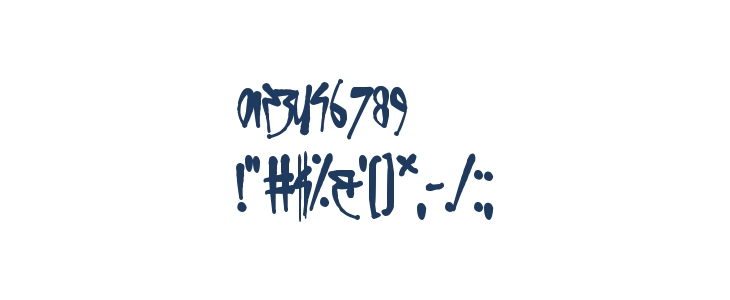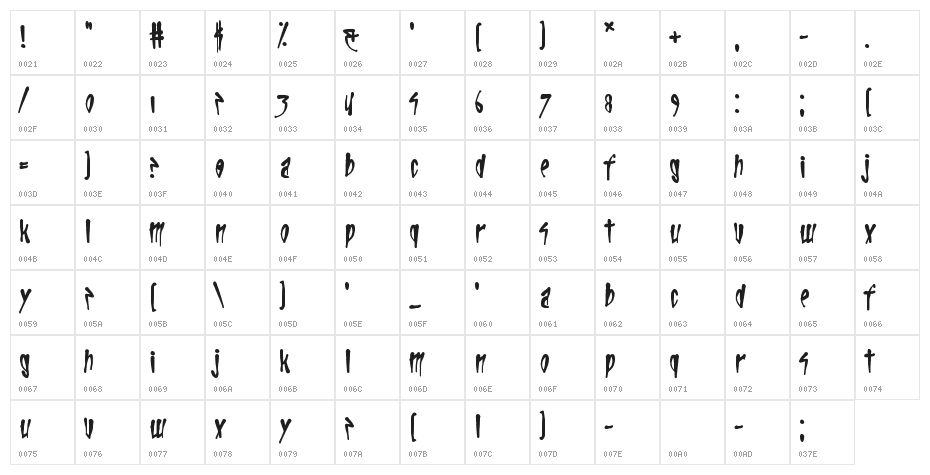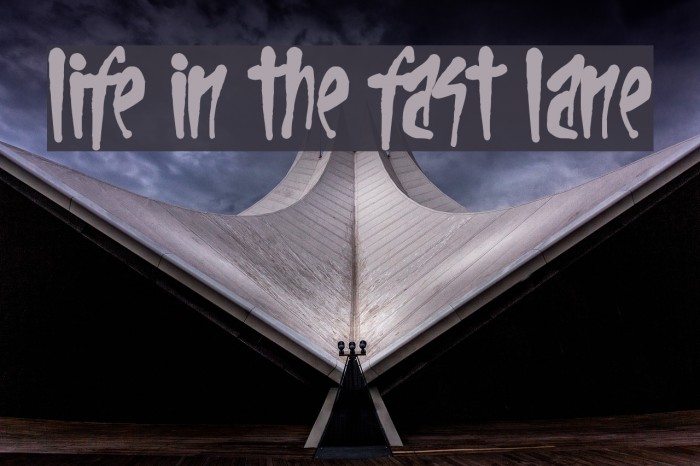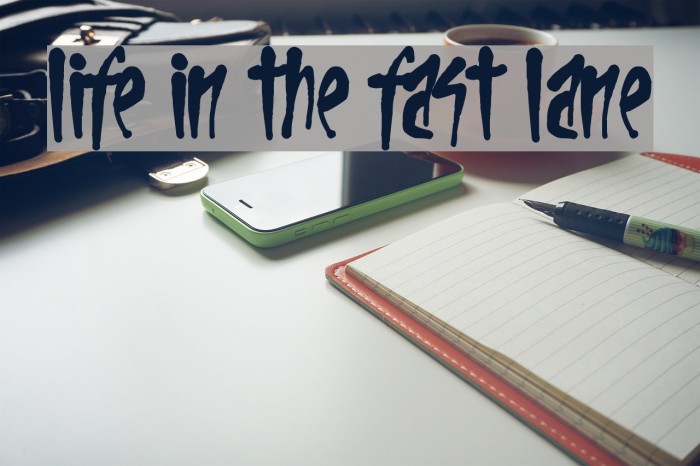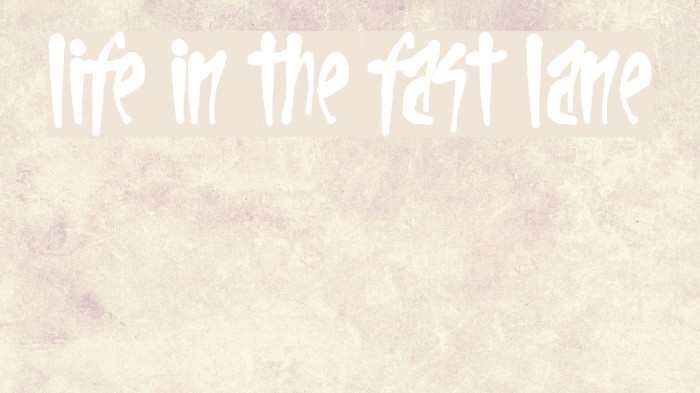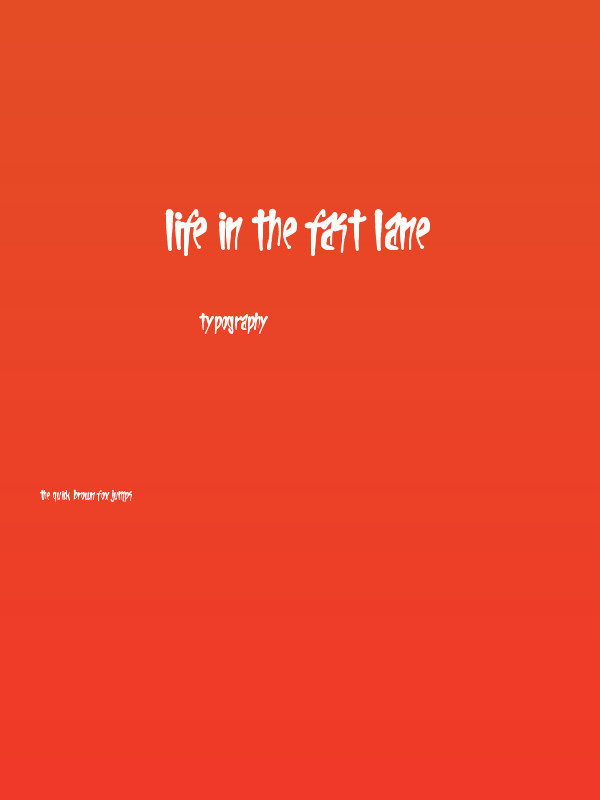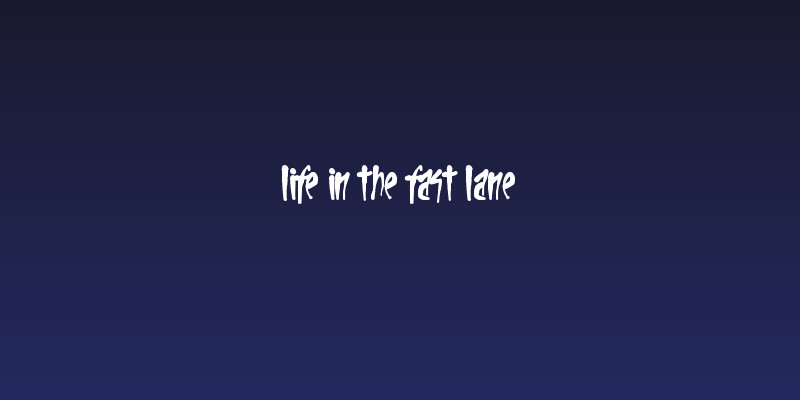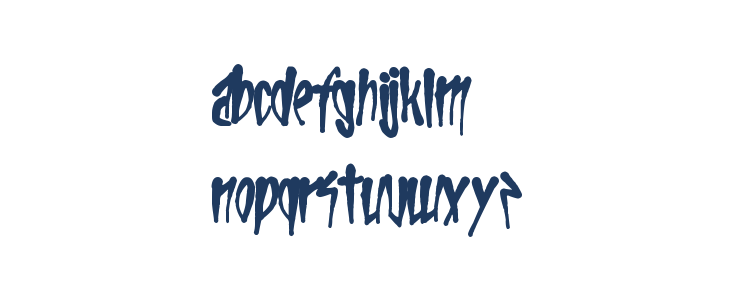
Life In The Fast Lane Font
Life In The Fast Lane Description
This font exudes a dynamic and energetic vibe, characterized by its bold, brush-like strokes that convey a sense of motion and fluidity. The letters are slightly slanted, giving them an italicized appearance, while maintaining a consistent thickness throughout, which suggests a medium contrast. The overall style is reminiscent of graffiti or street art, making it ideal for projects that require a bold and expressive touch. The spacing between characters is tight, enhancing the compact and cohesive look of the text. This font is particularly well-suited for creative and modern designs, where a touch of edginess is desired.
| Overall Style | Modern, Decorative |
| Proposed Projects | Ideal for street art designs, music album covers, event posters, and urban-themed branding. |